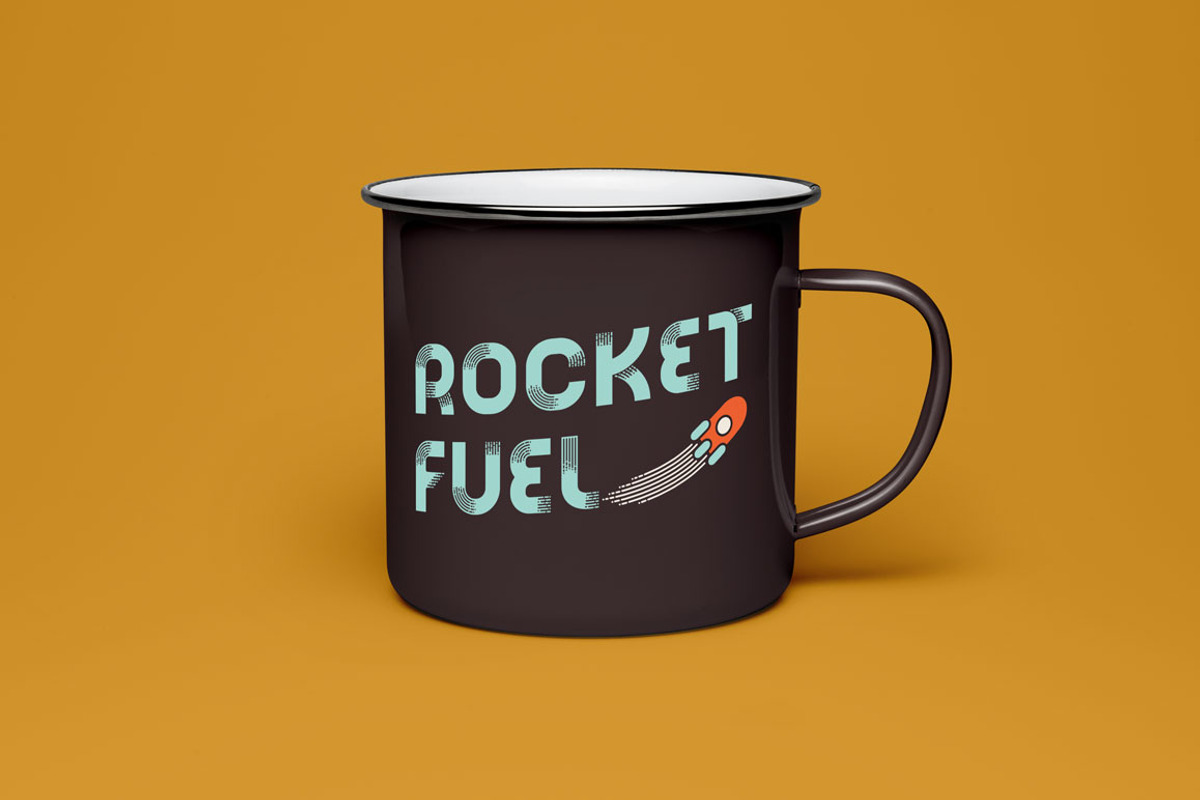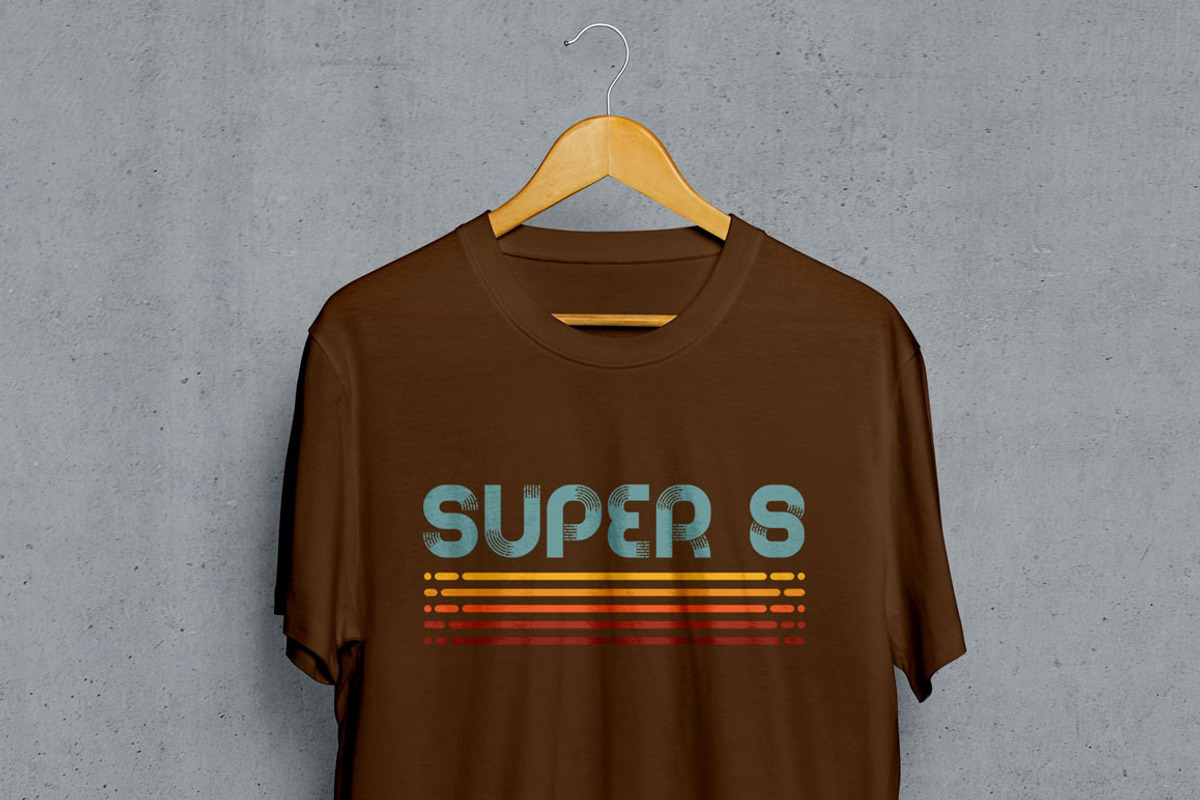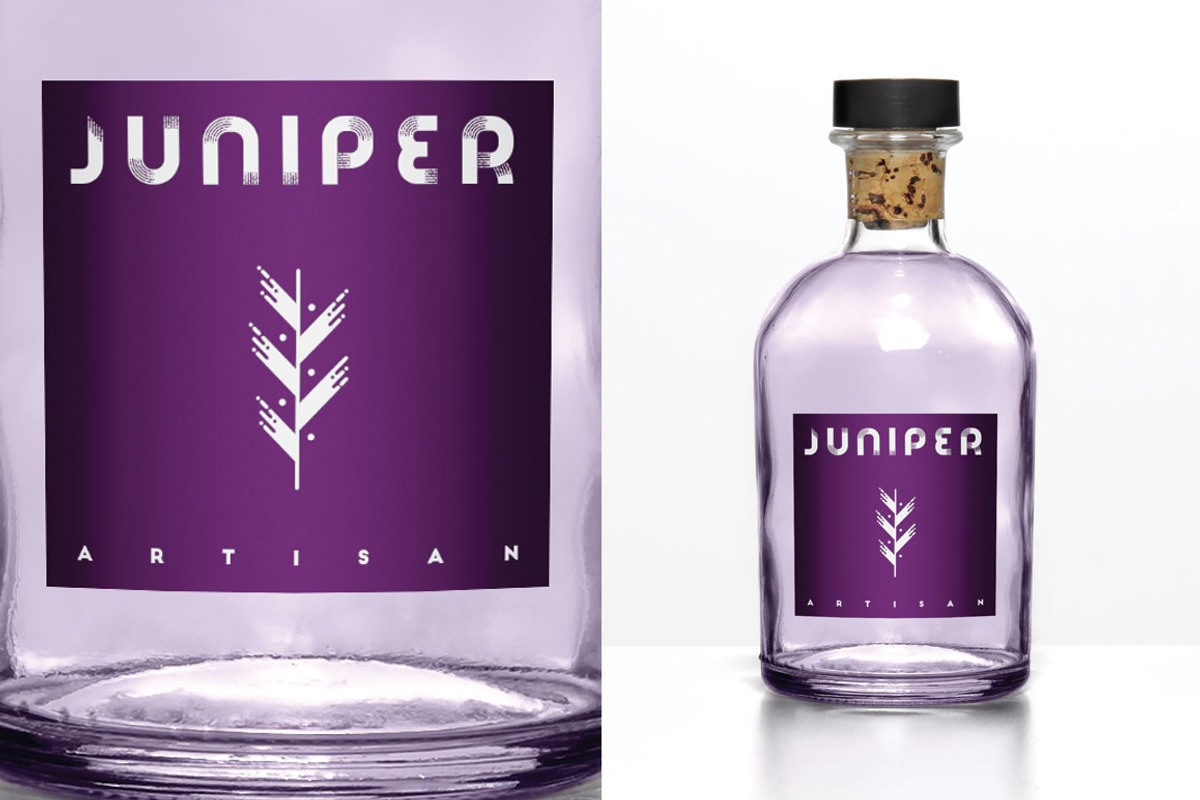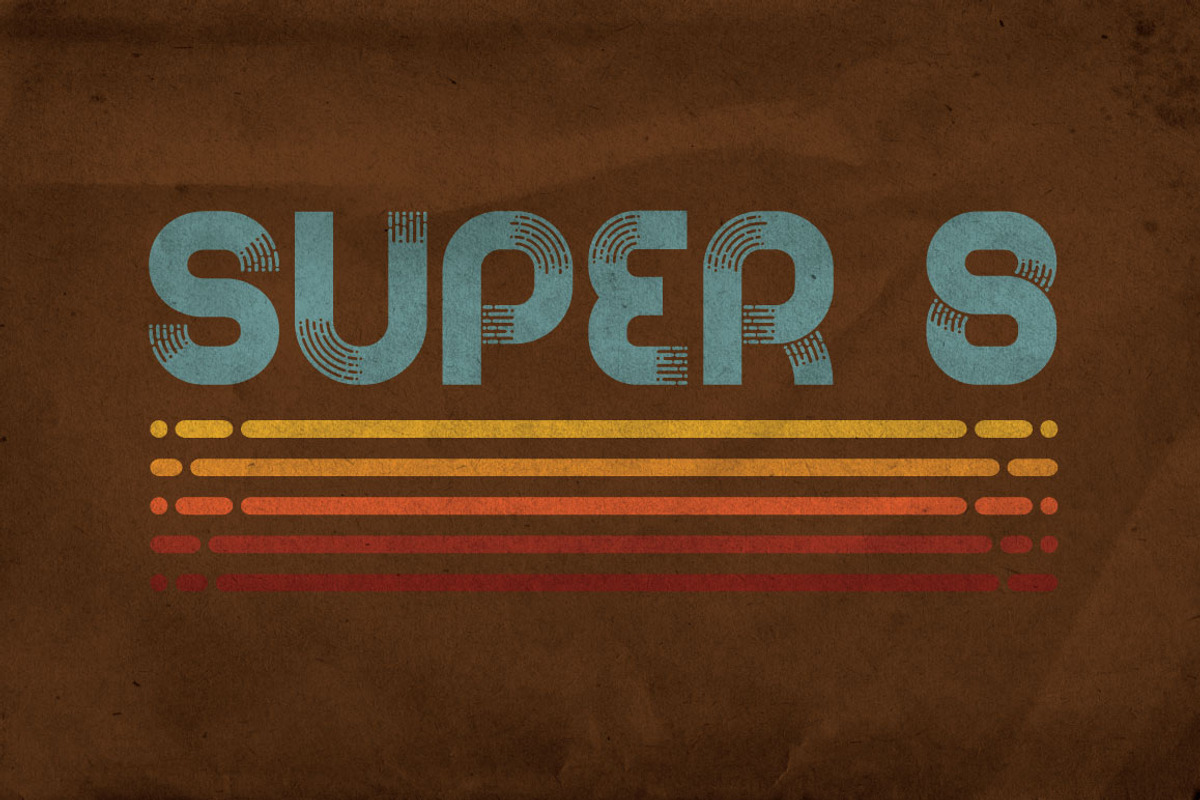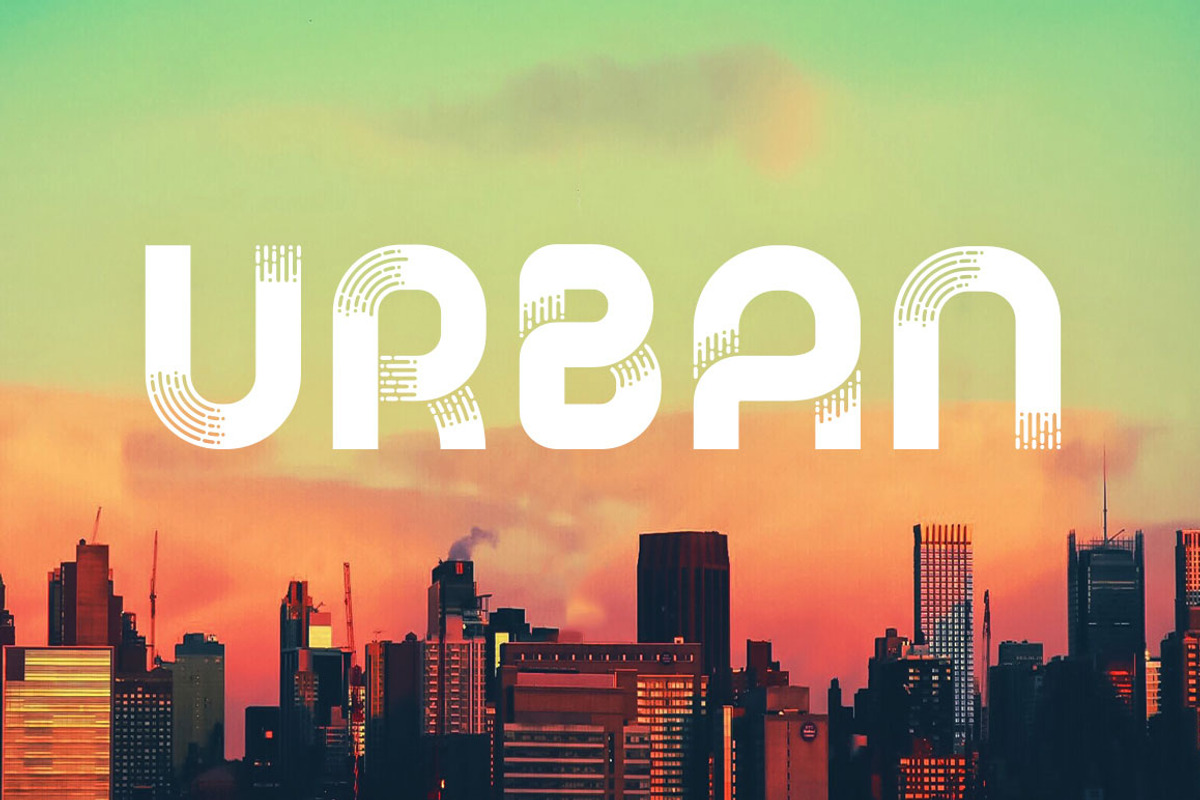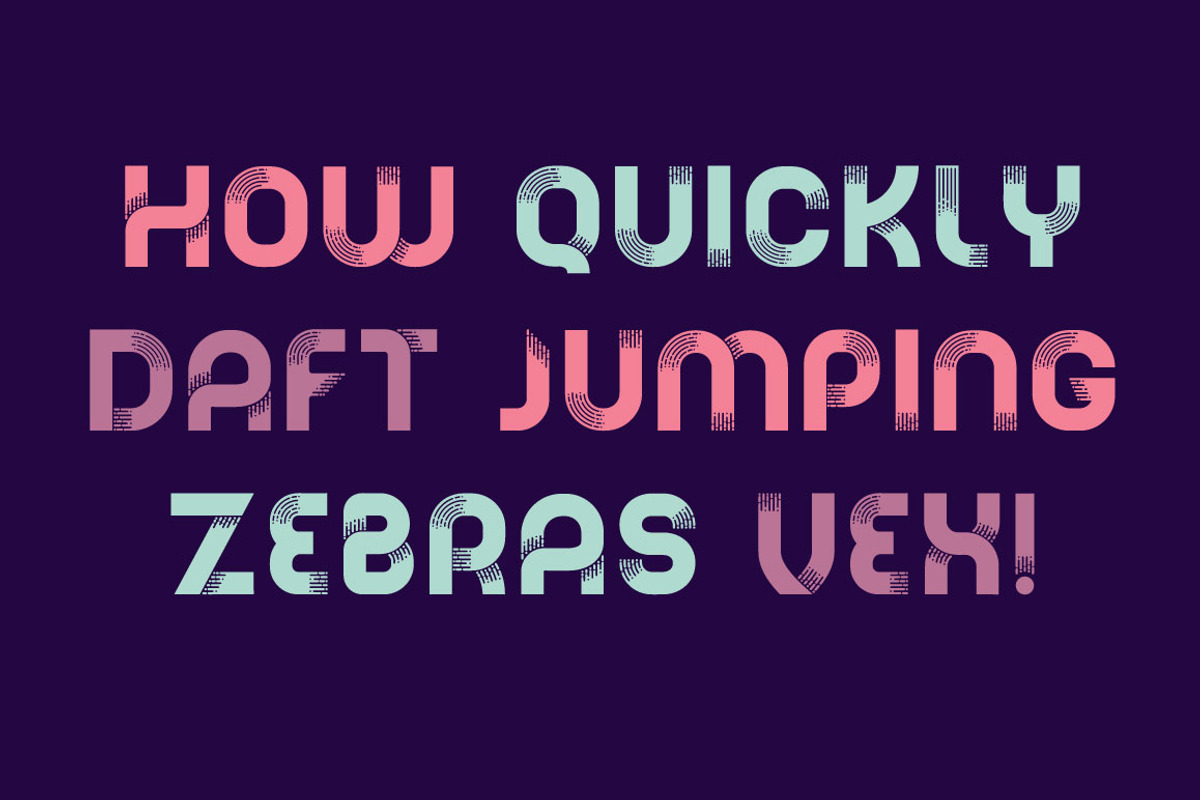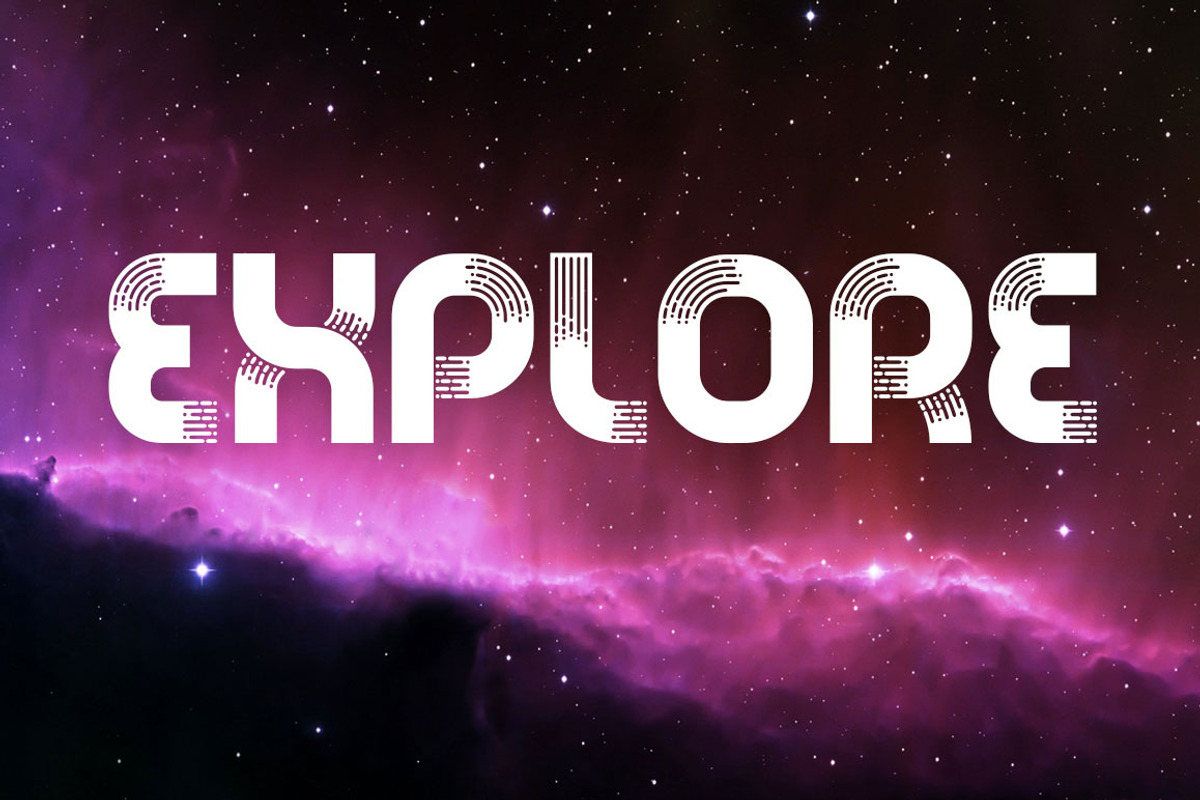
Nebula - A Liquid Style Font
The font that brings retro into the 21st century!
After the massive success of my Liquid Style Illustrator Brushes - I was excited to explore this popular and attractive style further. I'm therefore very proud to present 'Nebula', a high impact display font with loads of liquid style detail.
What is Liquid Style?
A modern yet retro digital design style that uses simple, stylized, round-ended lines, which appear to be dripping. It’s most commonly used to create eye-catchingly clean illustrations and icons. It's also known as ‘fast style’ because it gives the illusion that the image is in motion!
The font is designed to be seen big for maximum impact, and it's perfect for a range of projects including contemporary and retro themes, games, sci-fi and much more! The sky is the limit...